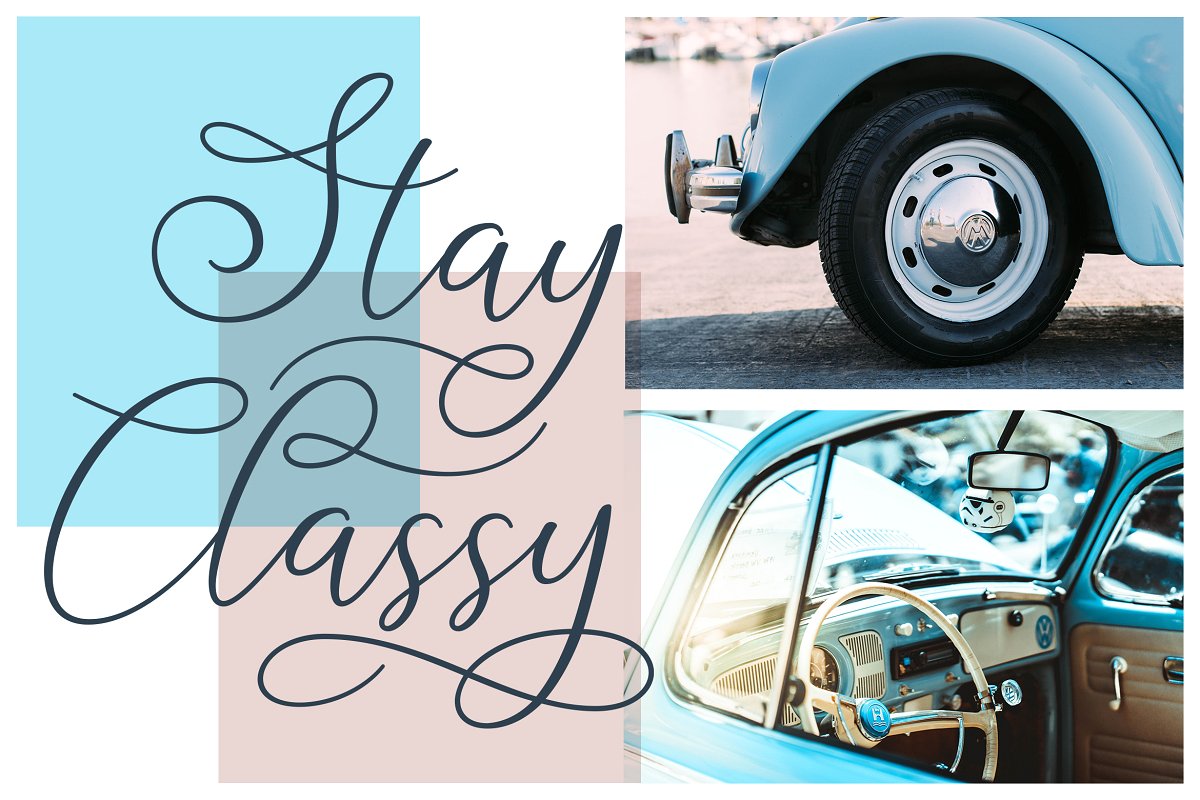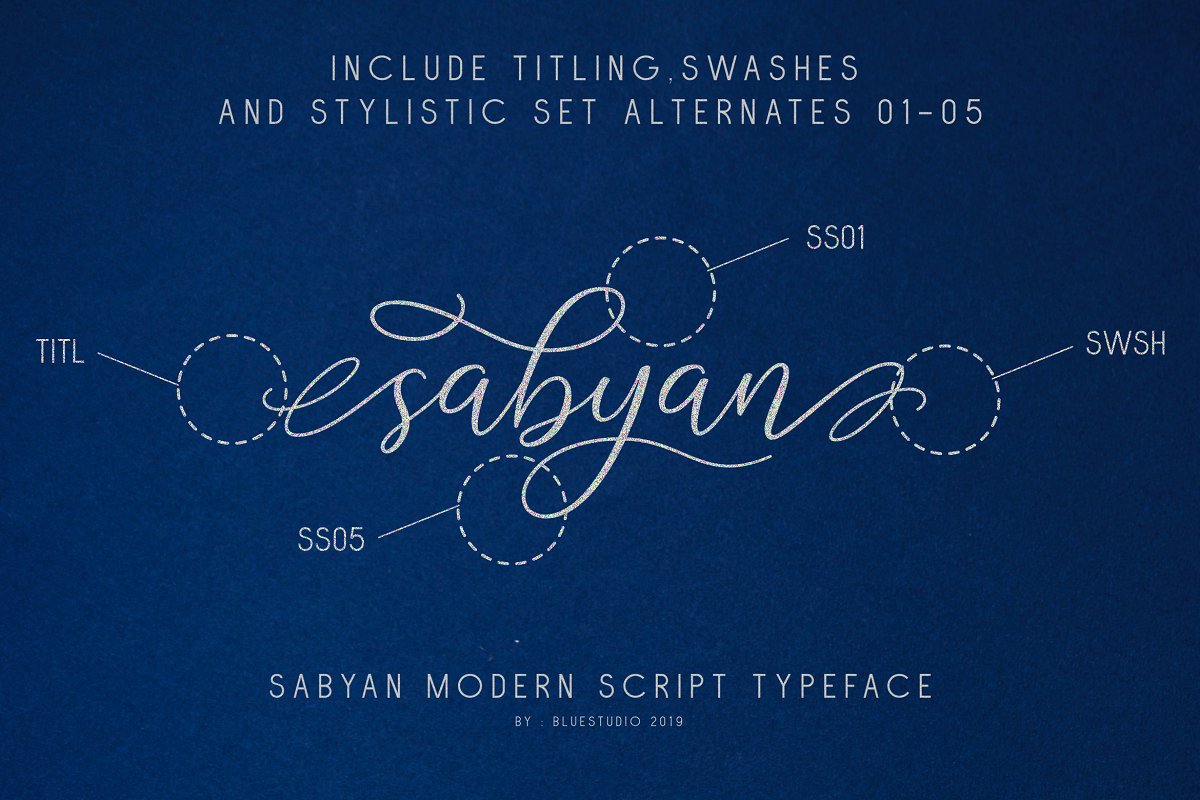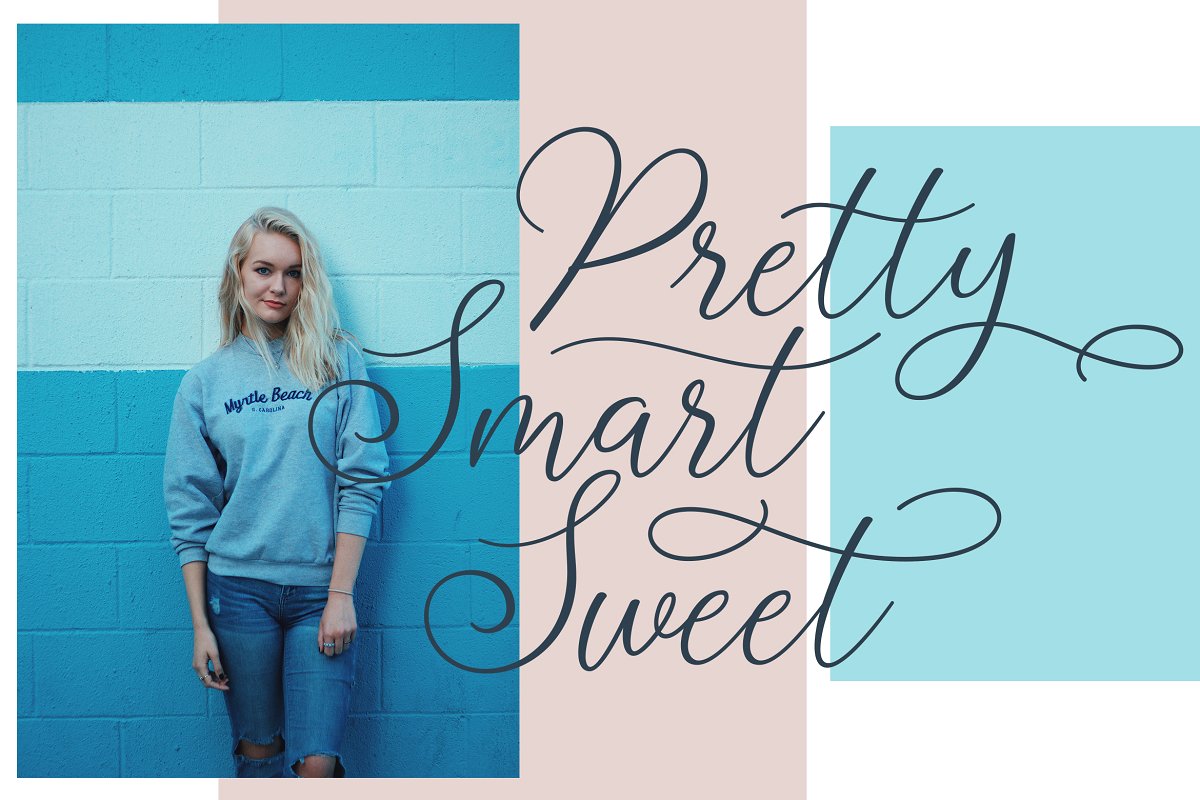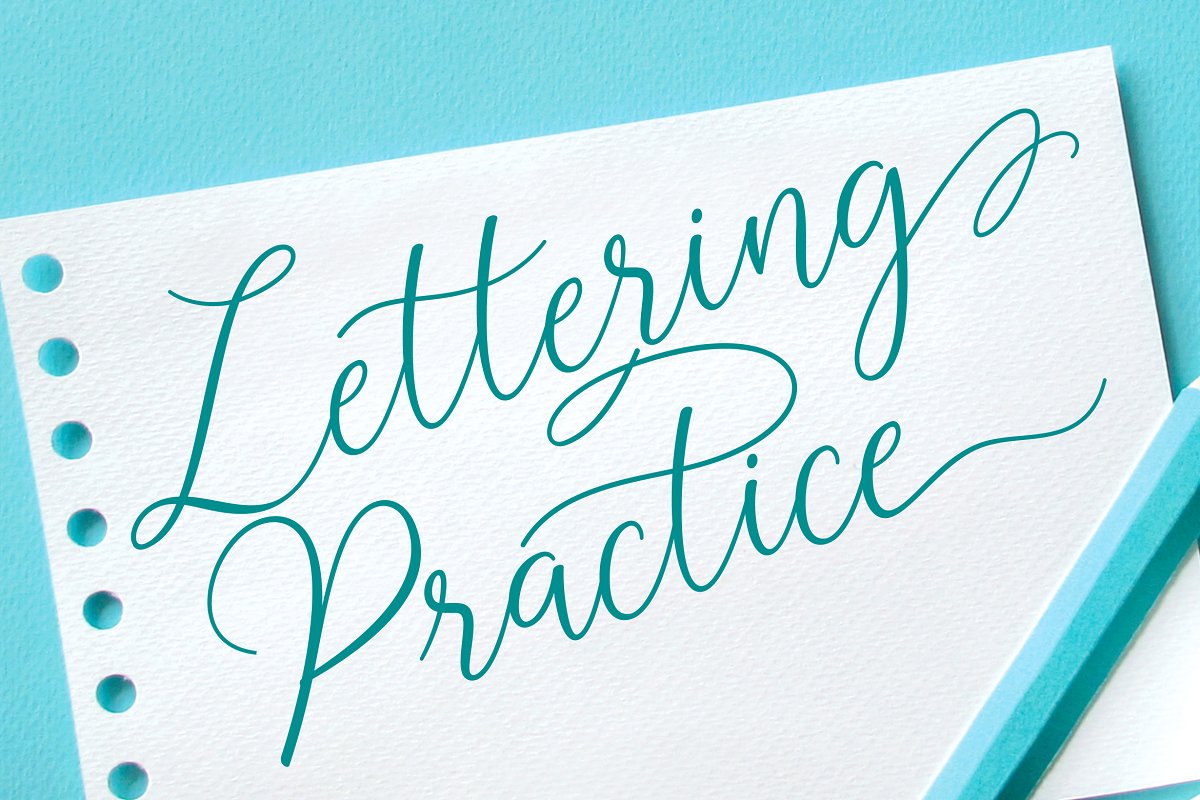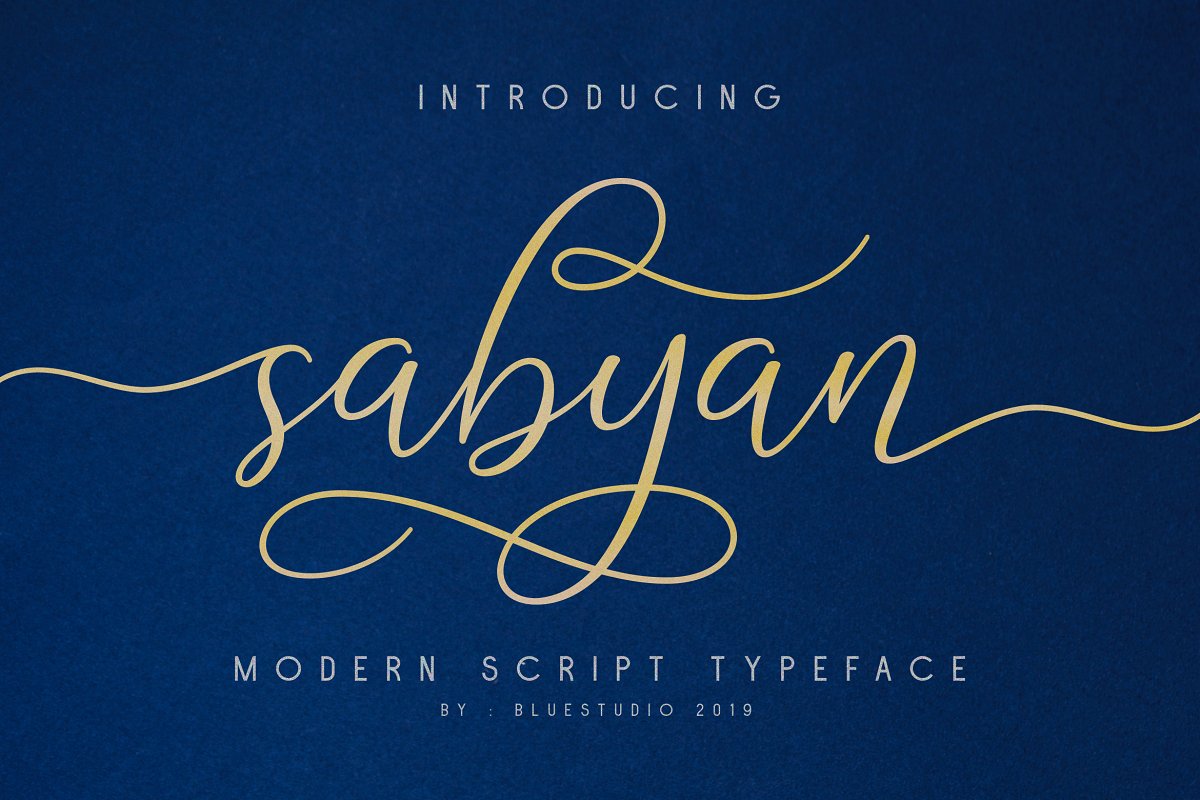
Sabyan Script Font
A modern fresh handmade calligraphy font, If you are looking for a handwriting font, then it is! It will make you happy. Introducing Sabyan Modern Script Typeface. Sabyan Script Font is a modern and clean handwriting script font. Sabyan is suitable for all your design project needs such as: logo design, branding, covers, posters, magazines, wedding invitations, greeting cards, quotes and more.